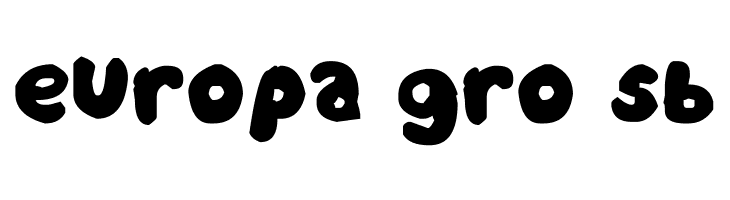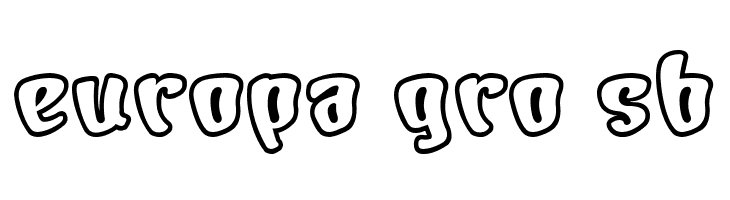
A playful, hand-drawn font with bold outlines and a cartoonish style.
A bold, playful font with rounded, thick strokes and a hand-drawn feel.
A playful, bold font with rounded, chubby characters ideal for fun and engaging designs.
A playful, bold font with thick outlines and a hand-drawn, cartoonish style.
A playful, bold font with rounded, slightly slanted characters.
A bold, condensed, and playful handwritten font with rounded, slanted characters.
A bold, italicized font with a playful comic style.
A bold, playful font with thick, exaggerated curves and a whimsical style.
A bold, playful font with irregular, hand-drawn letterforms.
A playful, comic-style font with a handwritten feel.